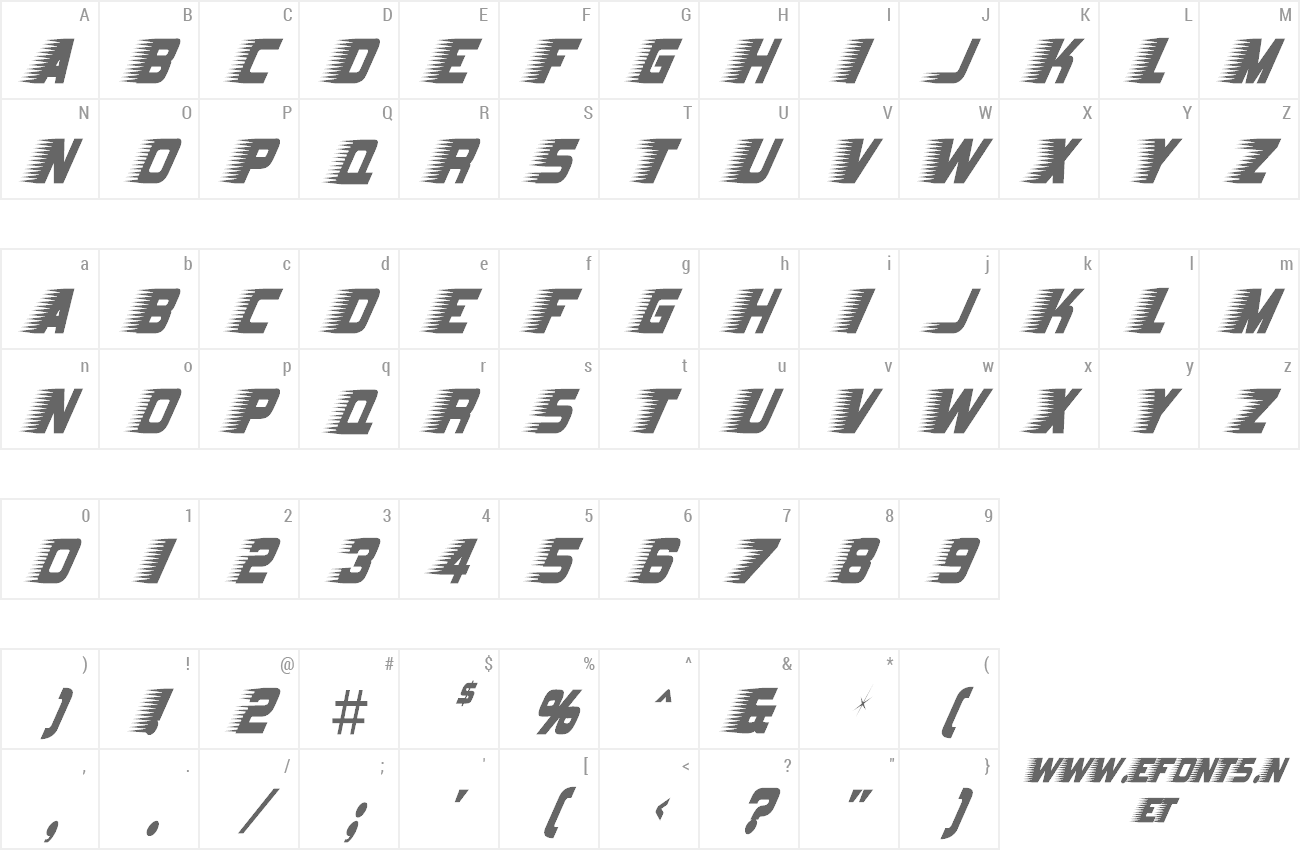
Preview and download Barbatrick Font. Created by Typodermic Fonts in Fancy Various styles with 100% Free license.
Barbatrick is a speedy mid 20th Century styled headliner. This font includes a license that allows free commercial use: sometimes referred to as a desktop license. This allows you to install the font on a computer and use it to create posters, web graphics, game graphics, t-shirts, videos, signs, logos and more. Read the license agreement for details. If you'd like to embed this font in an app, ebook, on the web or anything that's not covered by the desktop license agreement, visit the link below. You'll find distributors who offer different types of licenses or you can contact me for help. http://typodermicfonts.com/barbatrick/ |